Latin Italic 05: “Inclination of Italic 1”
In the previous article of this series “Design Process of Italic,” inclination of character is mentioned as an example of comparison points between regular and italic. As the impression of the whole typeset sentence depends on the intensity of inclination, it is an important element to be noted at the time of italic creation or font selection.
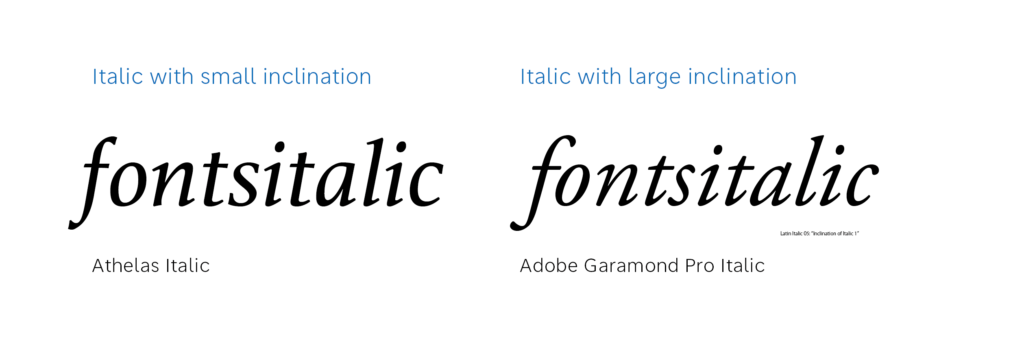
As italic is originally a typeface in which cursive script for speedy handwriting was put into print, the intensity of inclination angle is related to the intensity of writing speed. When writing a sentence horizontally in handwriting, there is a tendency that the faster you try to write, the more inclined the characters are to the right, which is the writing direction. Therefore, it can be said that a largely right-inclined design gives a speedy and dynamic impression, and the closer it is to regular, it tends to give a relaxed, static impression.
Also, the strength of inclination influences the conspicuous degree of italic in mixed typesetting with regular. When inclination is strong, the difference in character shape with regular becomes significant, and the part with italic typesetting looks stands out.
Also, in the actual italic creation process, several design patterns with different angles are often prepared in the initial stage, and a mixed typesetting test with regular is conducted, etc. to adjust the overall atmosphere and conspicuous method.